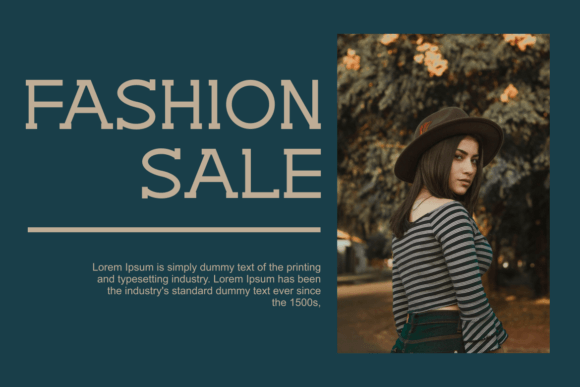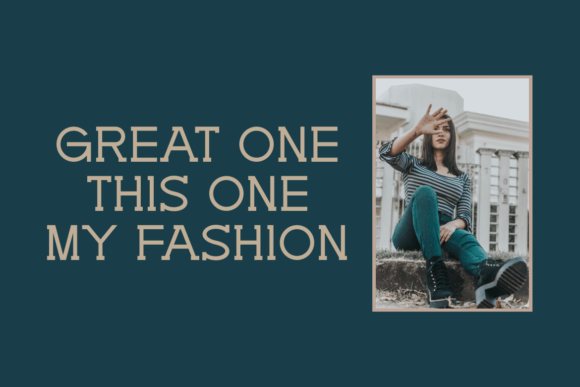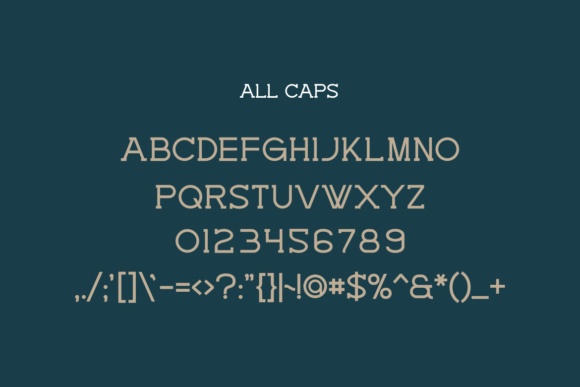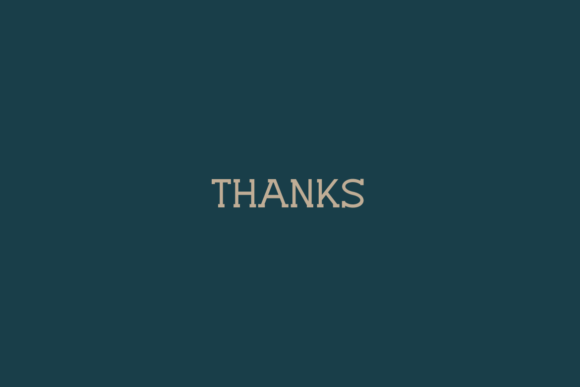
Introduction to Klebium Font
Klebium is a stunning serif typeface that exudes modernity and sophistication.
Its clean and minimal design makes it an ideal choice for designers who seek a professional and polished look The fontโs beautiful curves and straight lines add a touch of elegance to any project, while its readability ensures that itโs perfect for both headlines and body text.